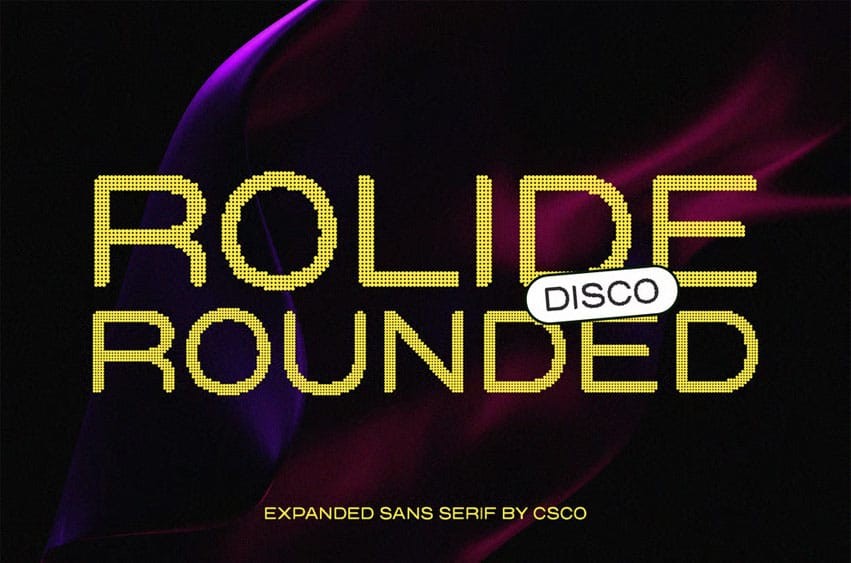
Rolide Rounded Font Modern Sans Serif with Rounded Style. This is a modern sans serif font that stands out with its smooth, rounded shapes and expanded structure. Designed to feel approachable yet bold, its clean geometry carries a contemporary aesthetic that instantly captures attention. This rounded form gives the font a fresh and inviting personality, making it versatile for a wide range of creative applications.
Disco Effect for Glamorous Vibration. What makes the font unique is its dazzling disco effect. Each letter sparkles with a sense of rhythm and movement, giving the impression of visual vibration. This shimmering detail transforms ordinary text into something glamorous and dynamic, perfect for projects that want to radiate energy and celebration.
Expanded Style for Bold Presence The expanded letterforms provide a strong visual presence without losing balance or readability. Its wider proportions make it ideal for impactful display settings, ensuring your words command attention in posters, headlines, and branding designs.
Perfect for Fresh and Energetic Projects. From branding and modern advertising to eye-catching posters and contemporary creative layouts, it brings vibrancy and glamour. It combines the professionalism of a sans serif with the fun, energetic sparkle of disco, making it the perfect choice for designers who want to balance clarity with bold creativity.